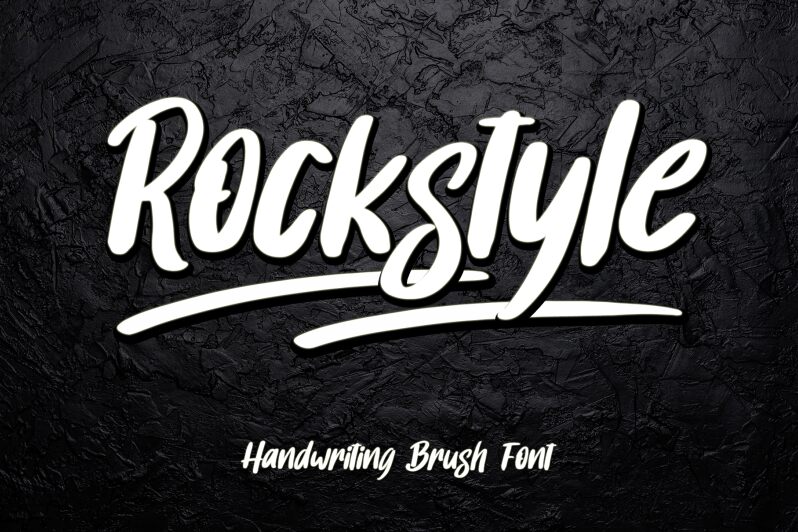
Rockstyle Italic - Personal Use Italic
Rockstyle Italic, designed by Letterafa Studio, is a captivating brush font that exudes boldness and creativity. With its semi-condensed width, this font effortlessly adds a touch of edginess to any project. Perfect for album covers, graffiti designs, or fashion magazines seeking an avant-garde feel. Its dynamic strokes and unique letterforms make it suitable for branding rock bands or rebellious streetwear labels. Whether you're working on a poster promoting an underground concert or designing a logo for an alternative music festival, Rockstyle Italic will infuse your project with rebellious energy and artistic flair.